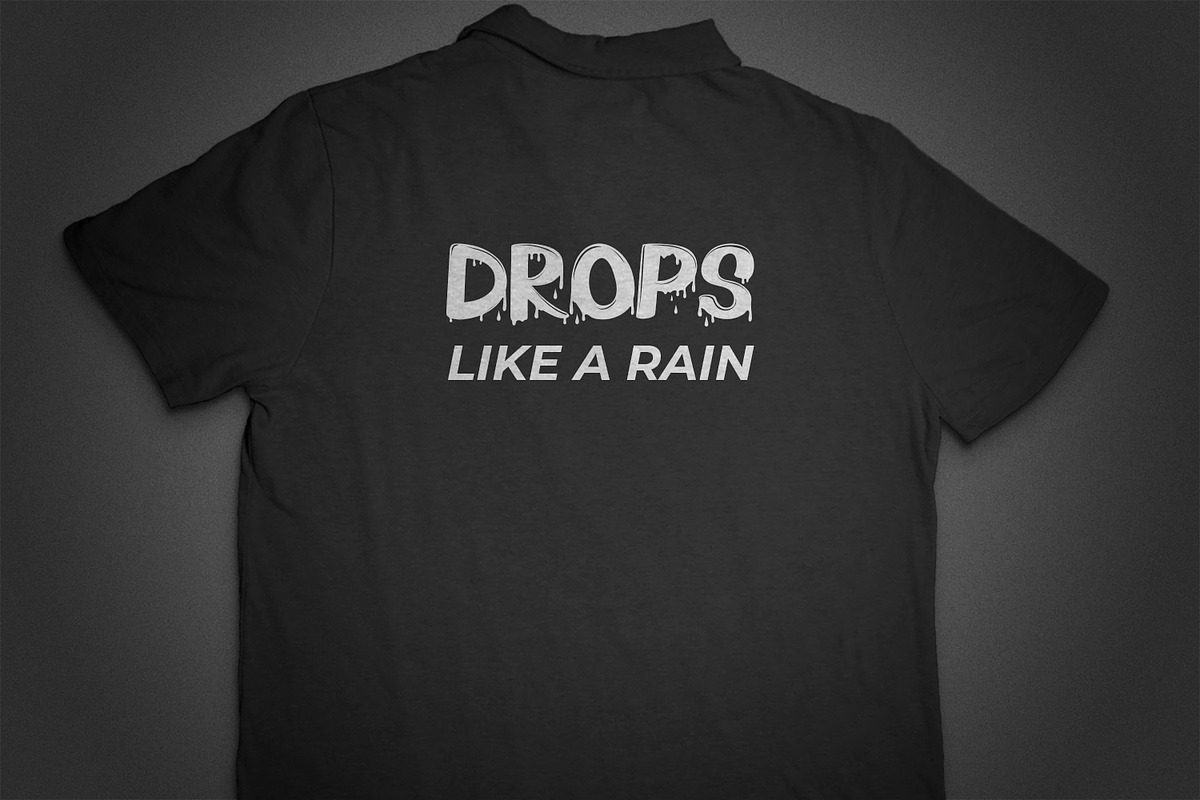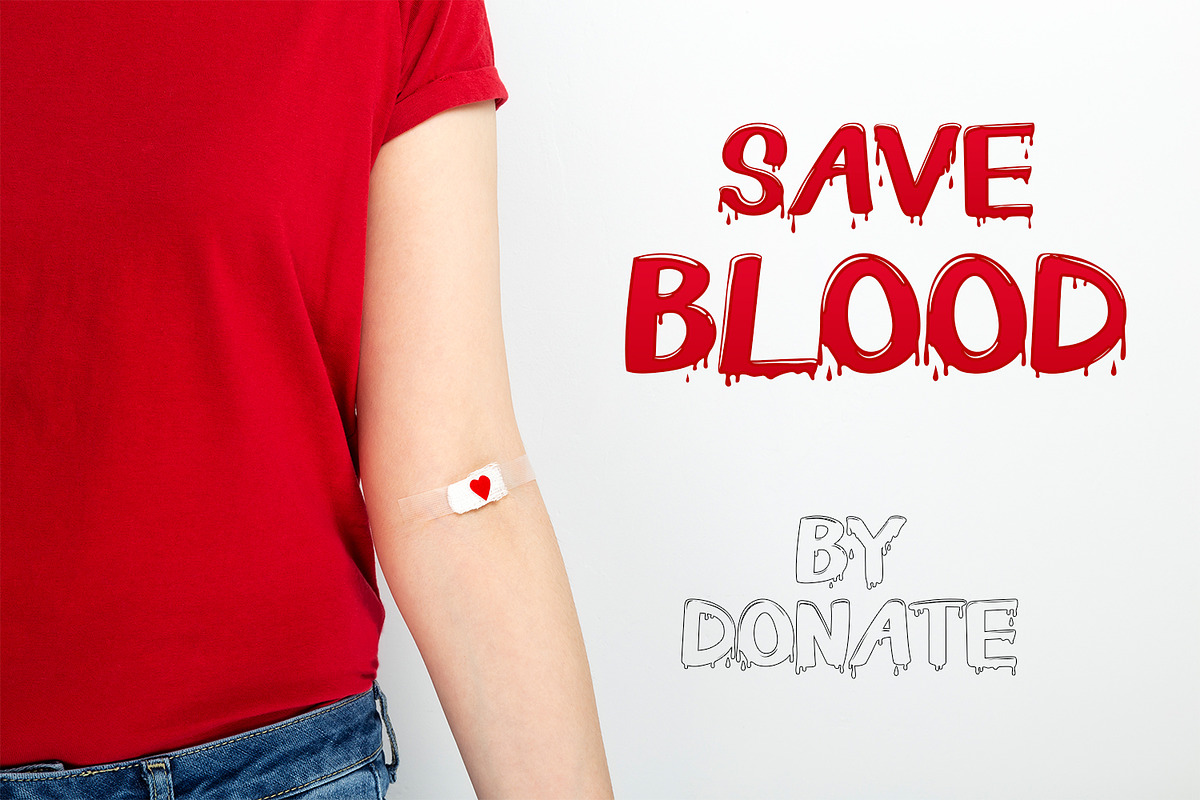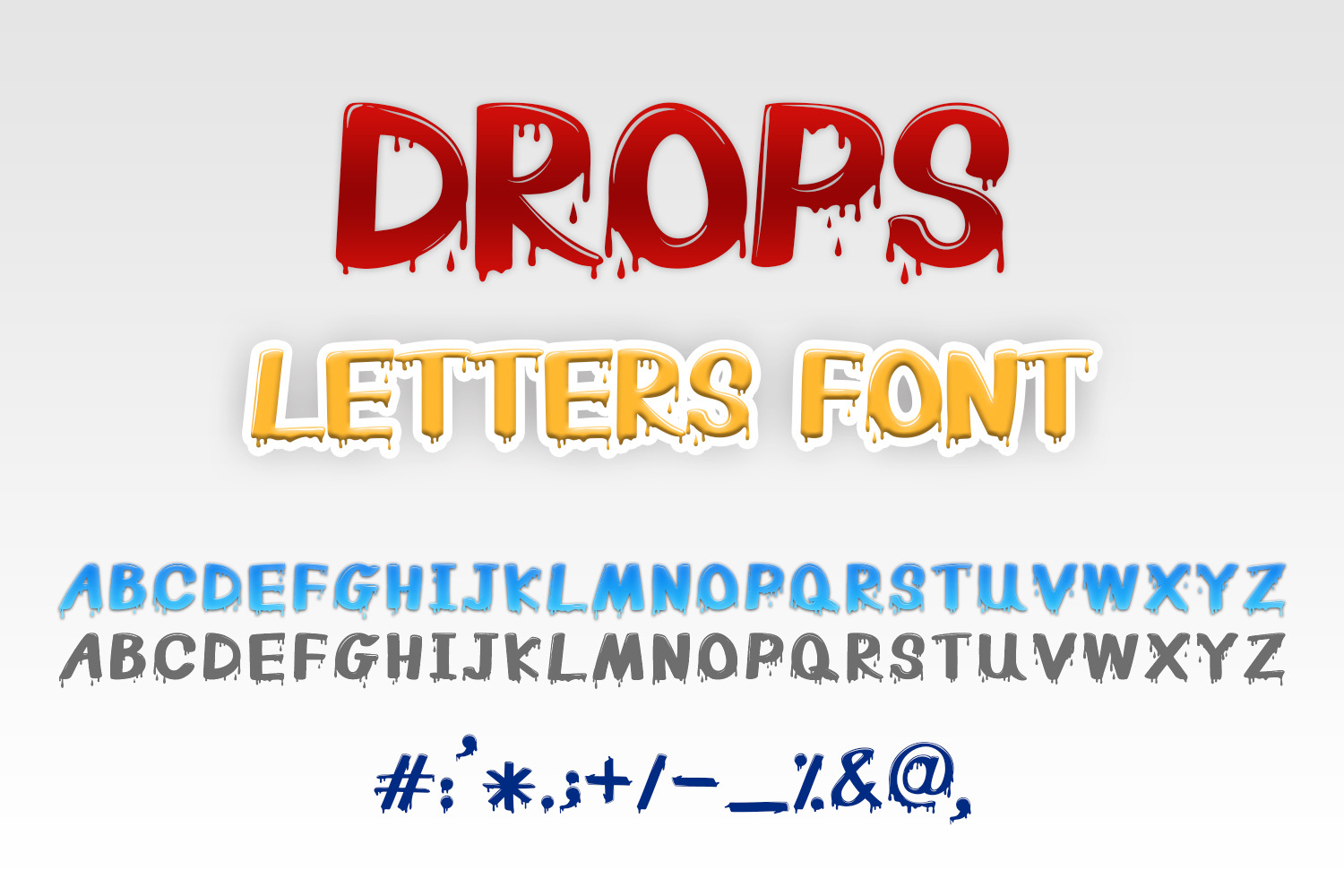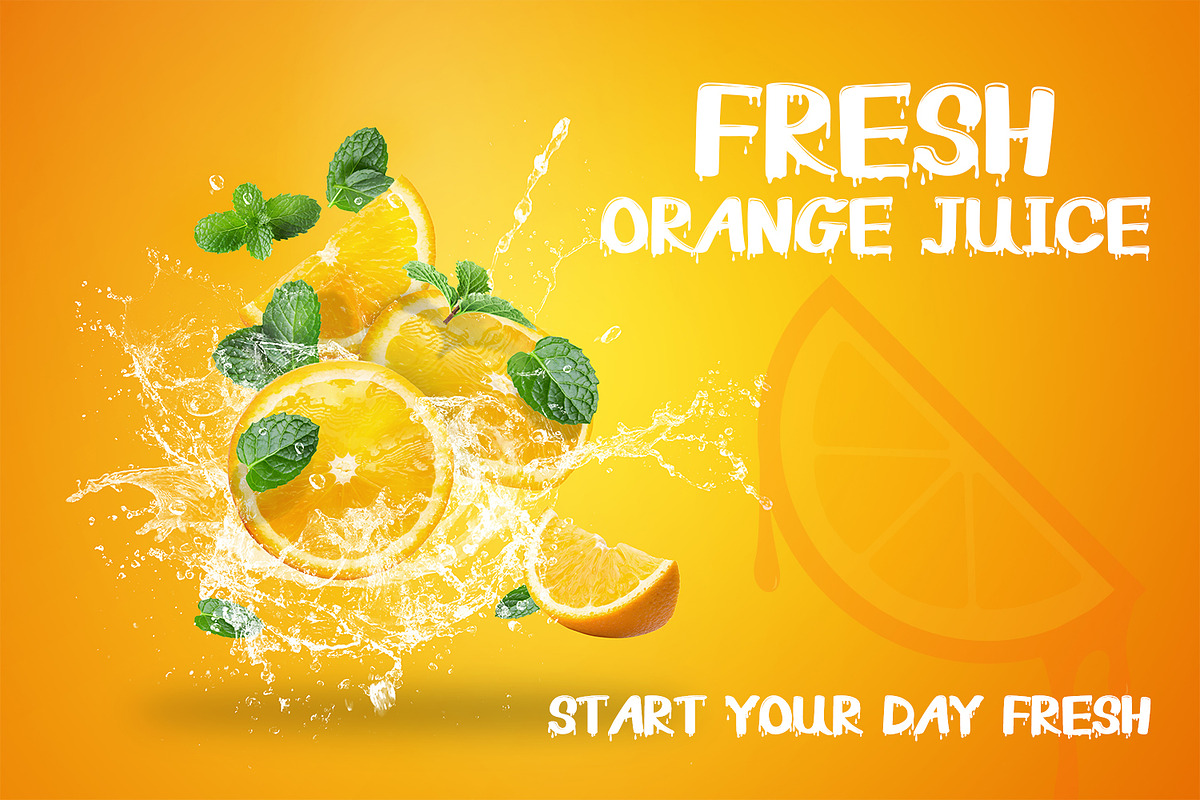
Drops Letters Font
Drops Letters is a bold and incredibly unique display font. It can easily be matched to an incredibly large set of projects, so add it to your creative ideas and notice how it makes them stand out!